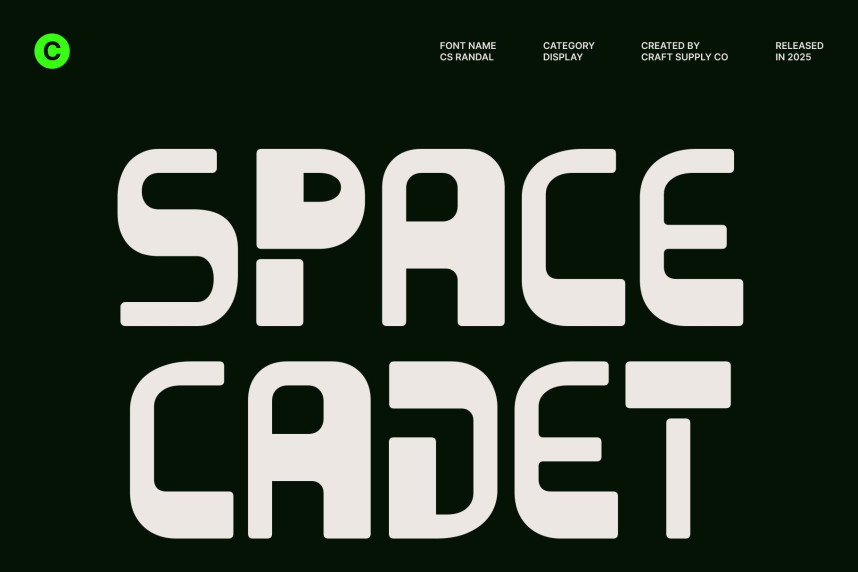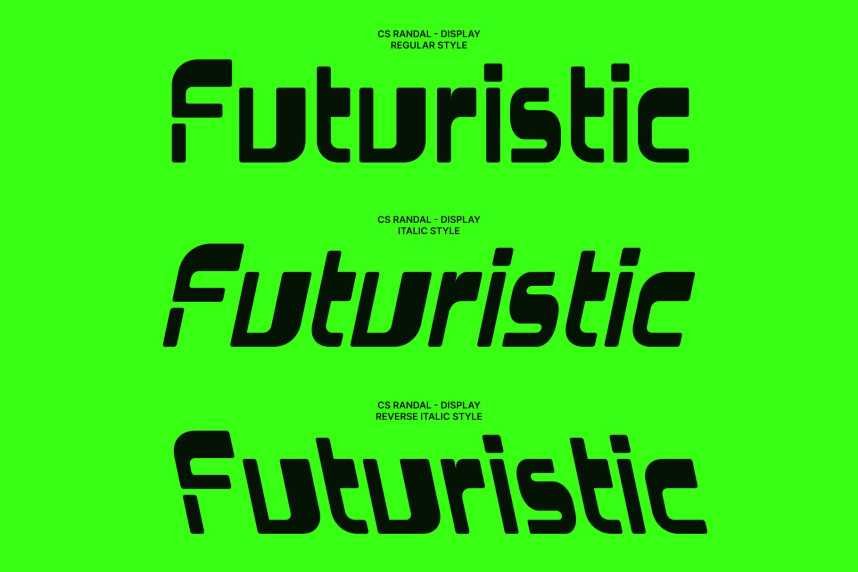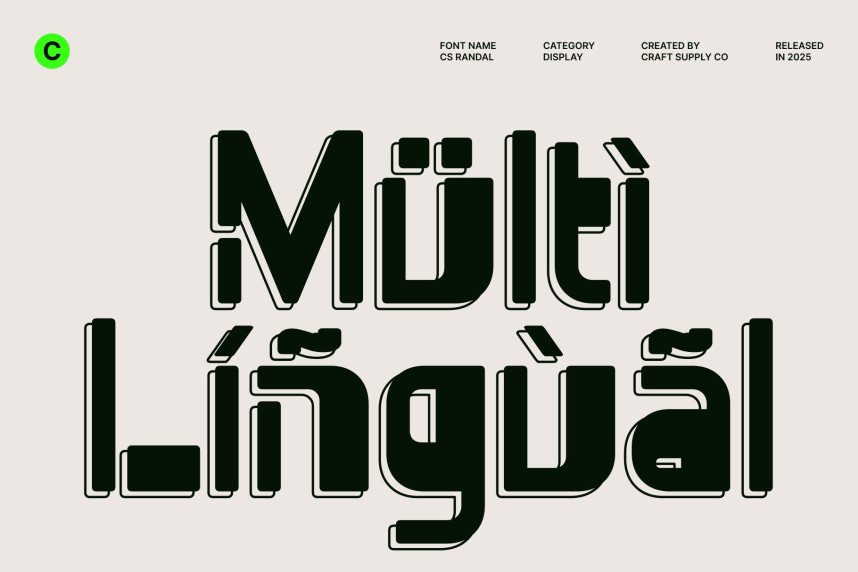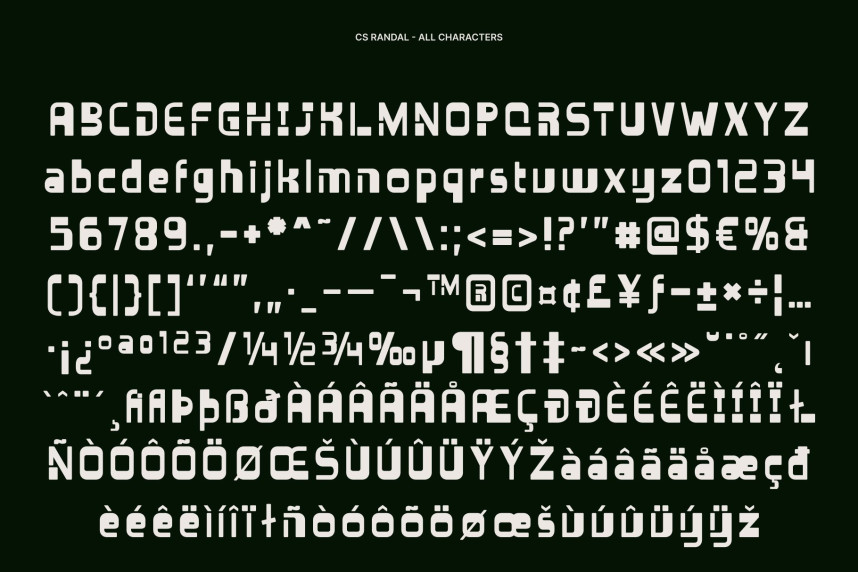
CS Randal Font
CS Randal Font – Brutalist Sans Serif with Sharp Industrial Edge Experimental Design with Bold Brutalist Attitude. This is a stylish and experimental sans serif font built on the foundations of brutalist design. Its sharp edges, assertive forms, and unapologetically rigid construction create a strong visual presence that feels raw, and industrial. Each letterform is designed to reject softness and decoration, instead embracing a bold, architectural approach that commands attention.